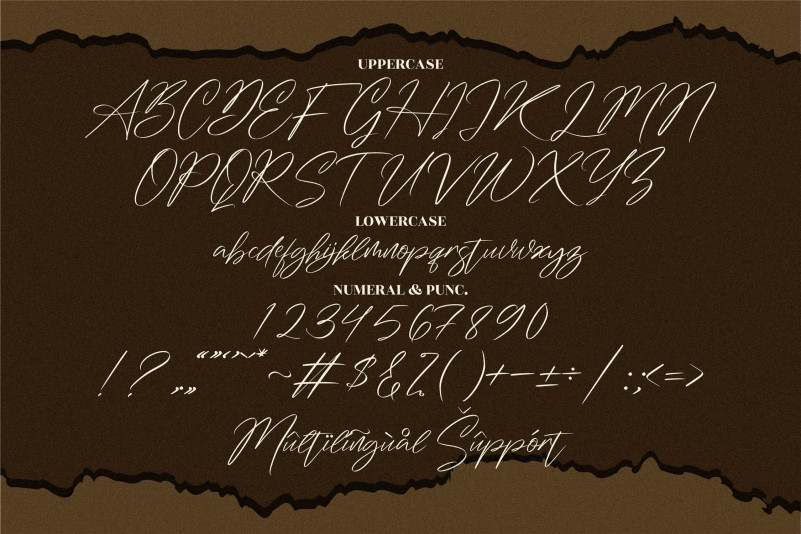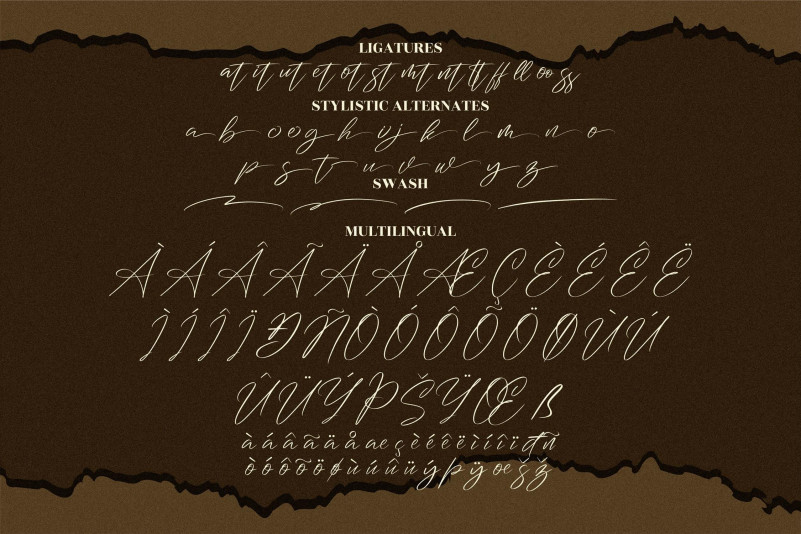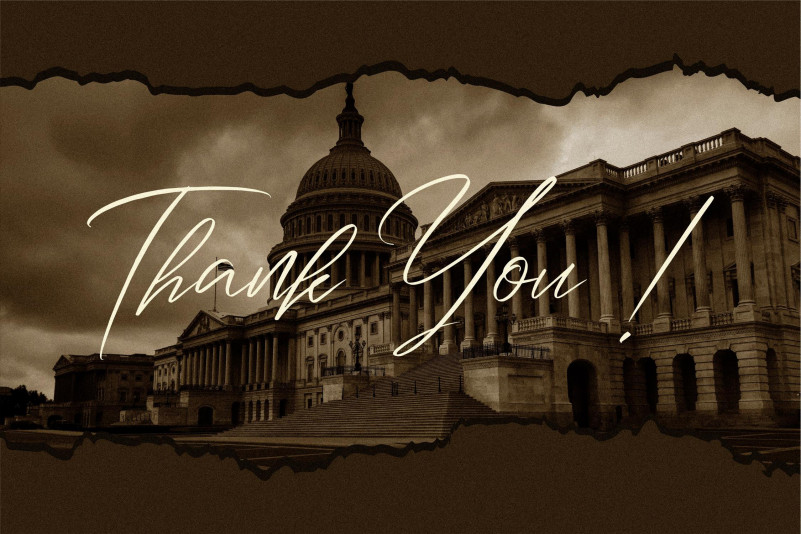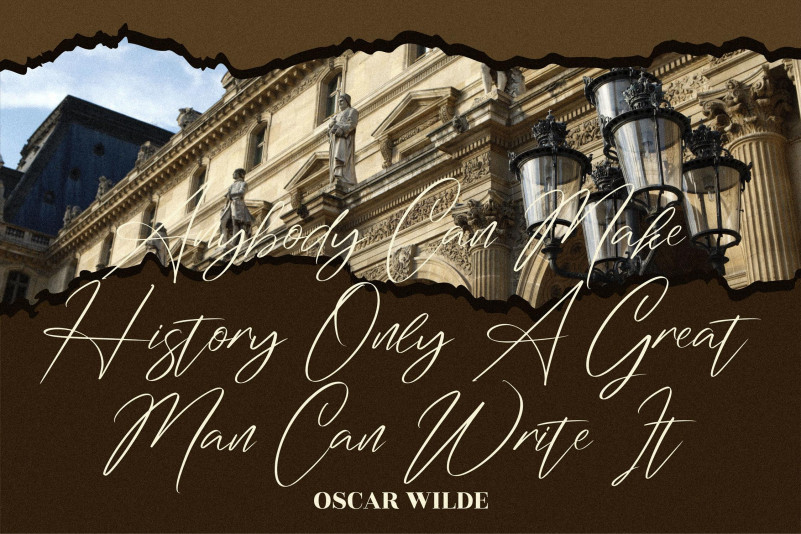
Washington Signature Font
Washington Signature Script Font
This is a beautiful light handwritten font with a unique feel and a stunning impact. It will add a luxury spark to any design project that you wish to create!